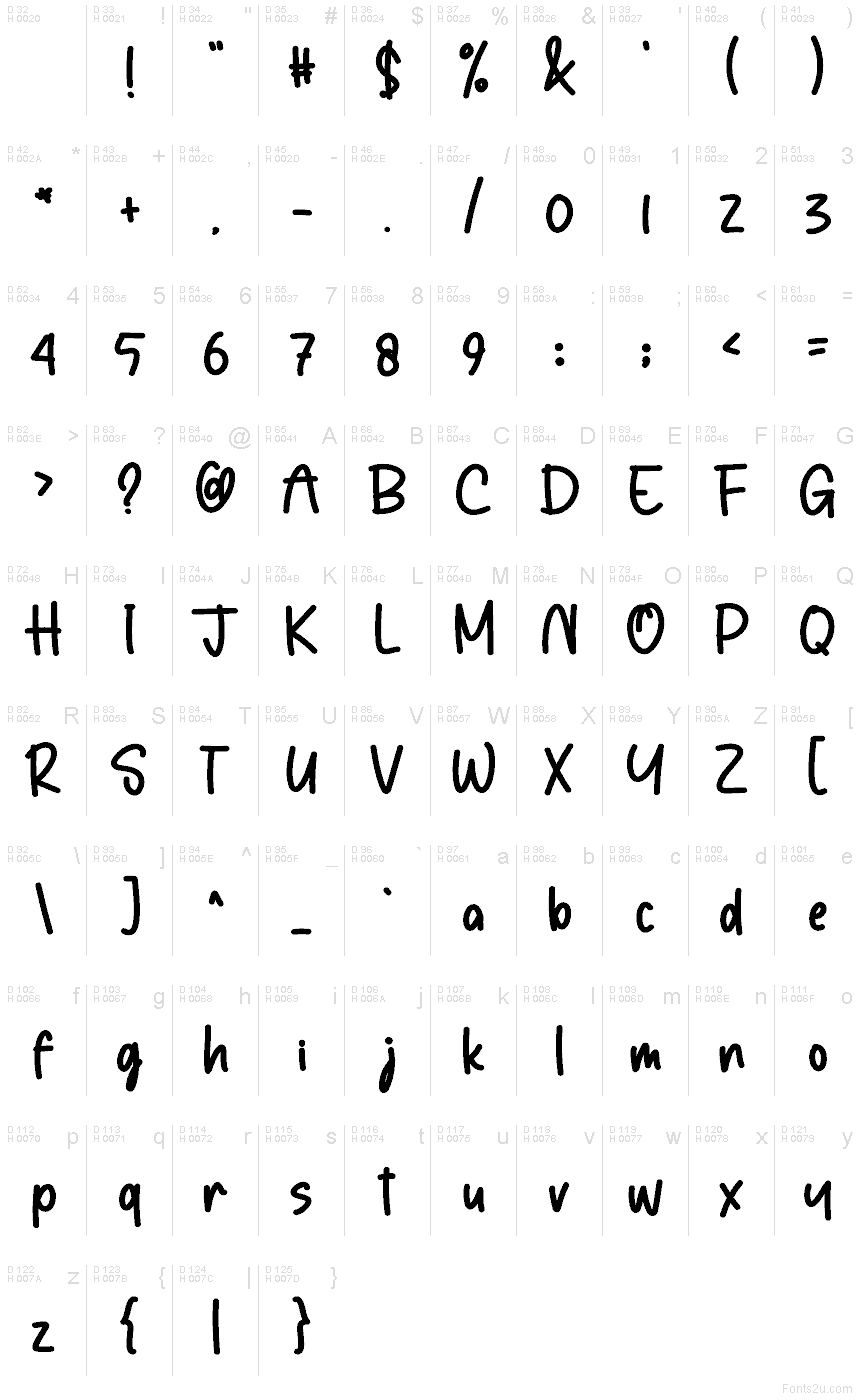
Only Kids
Only Kids font by creatype designer is a free handwritten typeface with the bouncy warmth of a marker pen on fresh paper. Rounded strokes, slightly uneven heights, and loose spacing give it that “drawn by a confident kid” energy—playful, but still clean and very readable. The letters feel soft and inky at the same time, making Only Kids feel friendly on screen and on print, especially at larger sizes where its personality can breathe.
Using Only Kids, you can bring a fun, approachable voice to children’s book covers, birthday invitations, classroom posters, kids’ brand logos, product packaging, and playful social graphics. This free font shines when you let it lead in headlines or short phrases, then balance it with a simple sans serif for body copy. Try generous line spacing and bright color palettes to keep its handwritten rhythm light and joyful.